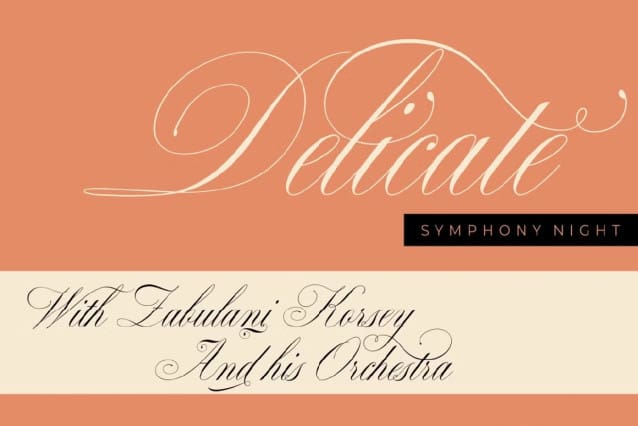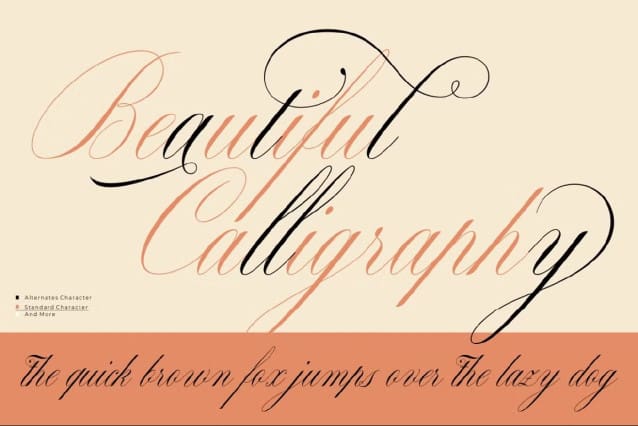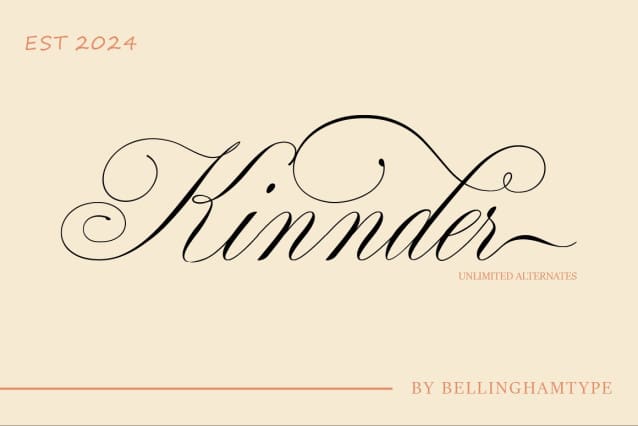
Kinnder Font
Kinnder Font is handwritten script font. This font would be perfect for photography, watermarks, social media posts, advertisements, logos & branding, invitations, product design, labels, stationery, product packaging, special events, and other projects.